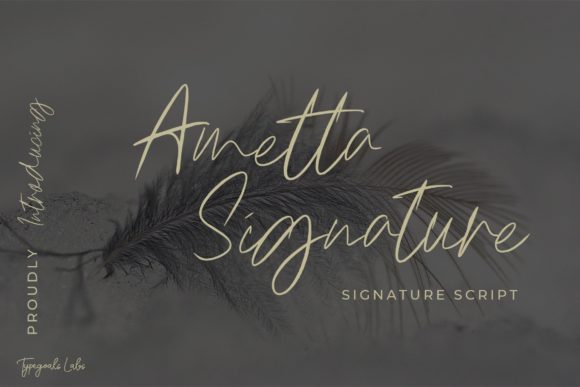
The Perfect Signature Script: Ametta Signature Script Font
Have you ever been in the middle of designing a project, and suddenly, you’re stuck on finding the perfect font? I recall a particularly frustrating experience while working on a wedding invitation design. My client wanted a luxurious and personalized touch, but I just couldn’t seem to find a font that fit the bill. That’s when I stumbled upon the Ametta Signature Script Font, and let me tell you, it was love at first sight! 💕
As a designer, I’m always on the lookout for fonts that can elevate my projects. Here’s my honest review of Ametta Signature Script:
- ✨ Lovely thin lettering: Ametta Signature Script boasts beautiful, delicate strokes that exude elegance and sophistication.
- ✅ Versatile: This font is perfect for a variety of designs, including wedding invitations, thank you cards, logos, and more.
- 💫 Easy to read: Despite its thin lettering, Ametta Signature Script remains clear and easy to read, even at smaller sizes.
Now, no font is perfect, and Ametta Signature Script has a few minor quirks:
- ⚠️ Limited use in body text: Due to its thin lettering, Ametta Signature Script might not be the best choice for lengthy body text.
- 🤔 Requires careful kerning: As with any script font, kerning can be a bit tricky. Make sure to adjust the kerning to ensure optimal readability.
Exploring OpenType Features: Glyphs and Stylistic Alternates
Ametta Signature Script supports OpenType features, including glyphs and stylistic alternates. These features allow you to add more personality and variety to your design. For example, you can use glyphs to add decorative elements, such as flourishes or swashes, to your text.
The Story Behind Ametta Signature Script
While the true story behind Ametta Signature Script remains a mystery, it’s easy to imagine that it was created by a designer who wanted to craft a beautiful, elegant script font. Perhaps they drew inspiration from classic calligraphy or handwritten letters. Whatever the inspiration, Ametta Signature Script is a stunning font that’s sure to elevate your designs.
| Font Name | Ametta Signature Script Font |
| Author | typegoals |
| Is Ametta Signature Script suitable for body text? | While Ametta Signature Script is beautiful, it’s not ideal for lengthy body text due to its thin lettering. It’s best used for headings, titles, or short paragraphs. |